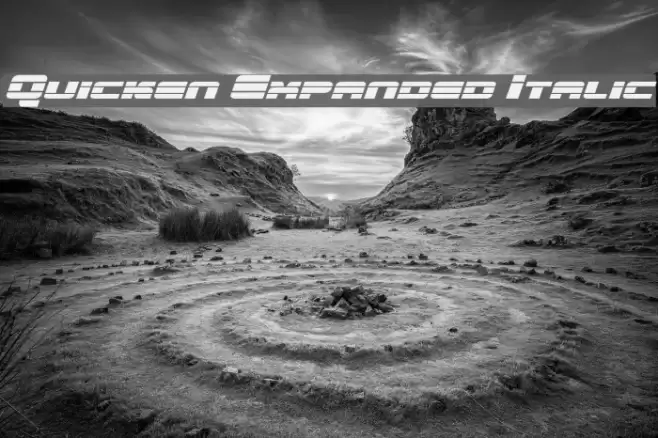
Quicken Expanded Italic Font
Quicken Expanded Italic Description
This font features a bold, futuristic design with a distinctly expanded and italicized style. The characters are constructed with a series of horizontal lines, creating a segmented appearance that adds a dynamic and modern feel. The uppercase and lowercase letters maintain a consistent width, contributing to the font's uniformity and sleekness. The numbers and special characters follow the same segmented pattern, ensuring cohesion across all glyphs. This font's unique style makes it ideal for projects that require a strong, contemporary aesthetic.
A bold, futuristic font with expanded and italicized characters featuring a segmented design from Uncategorized fonts.
- Proposed Projects: Ideal for technology branding, sci-fi movie posters, video game titles, and modern advertising campaigns.